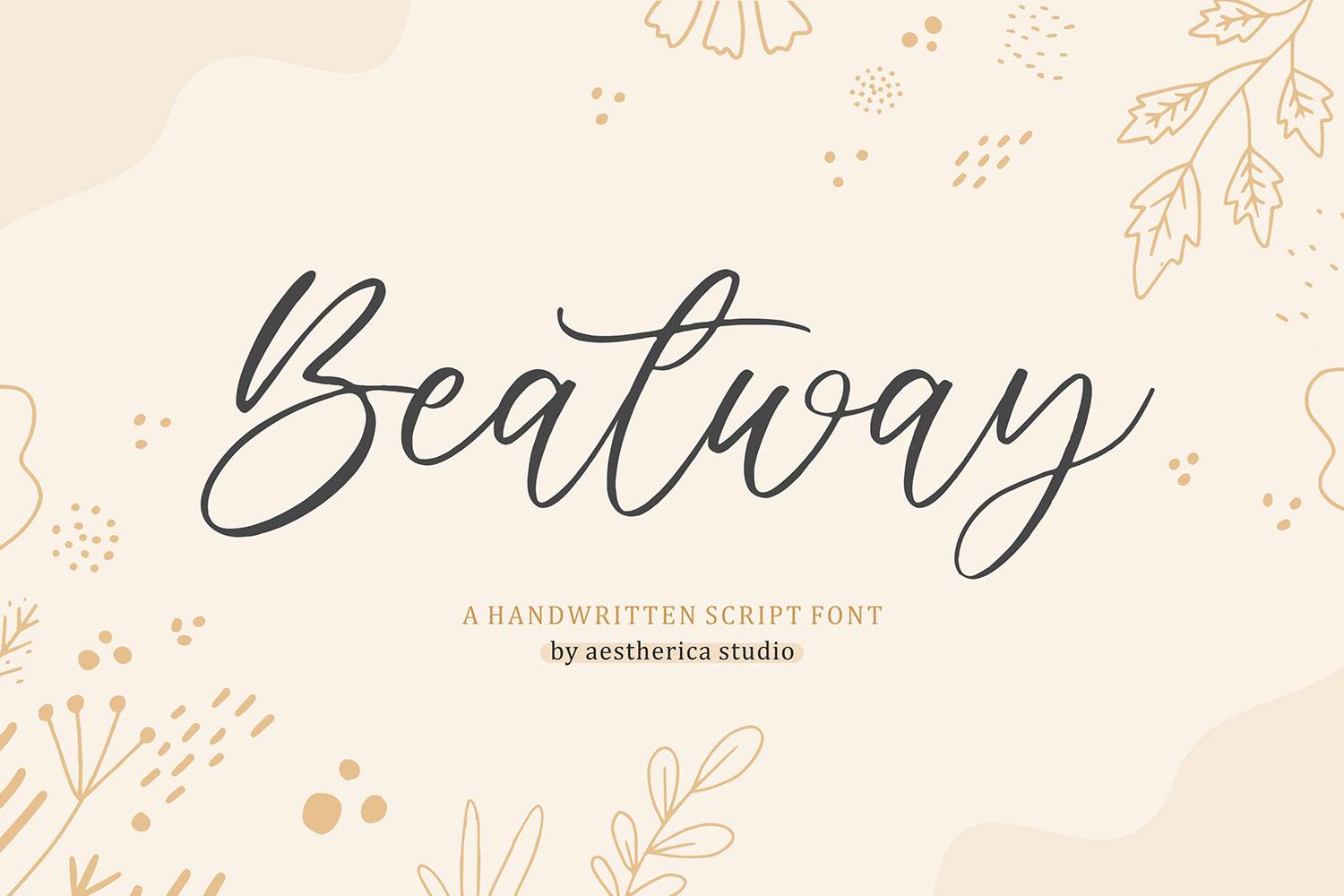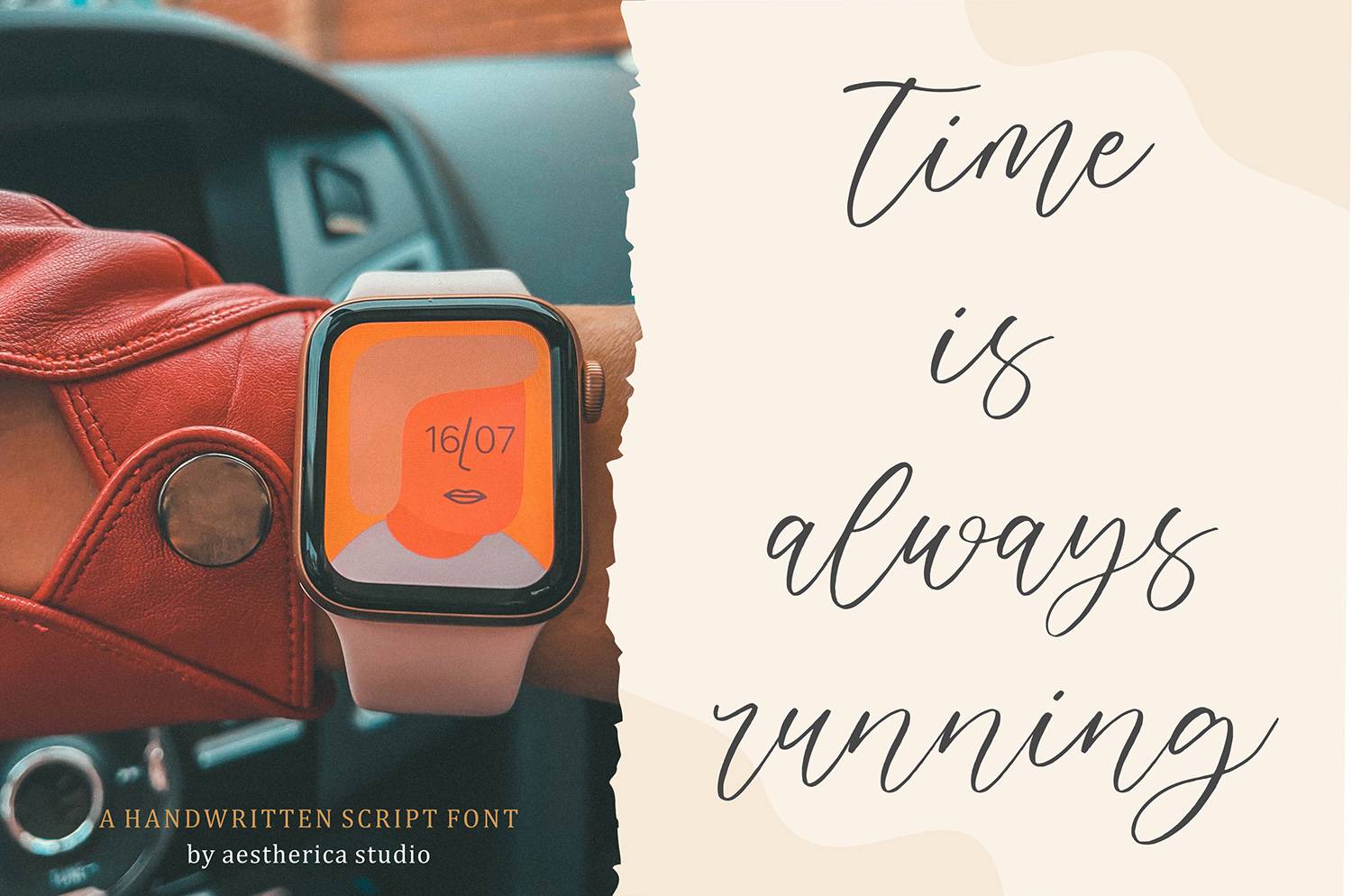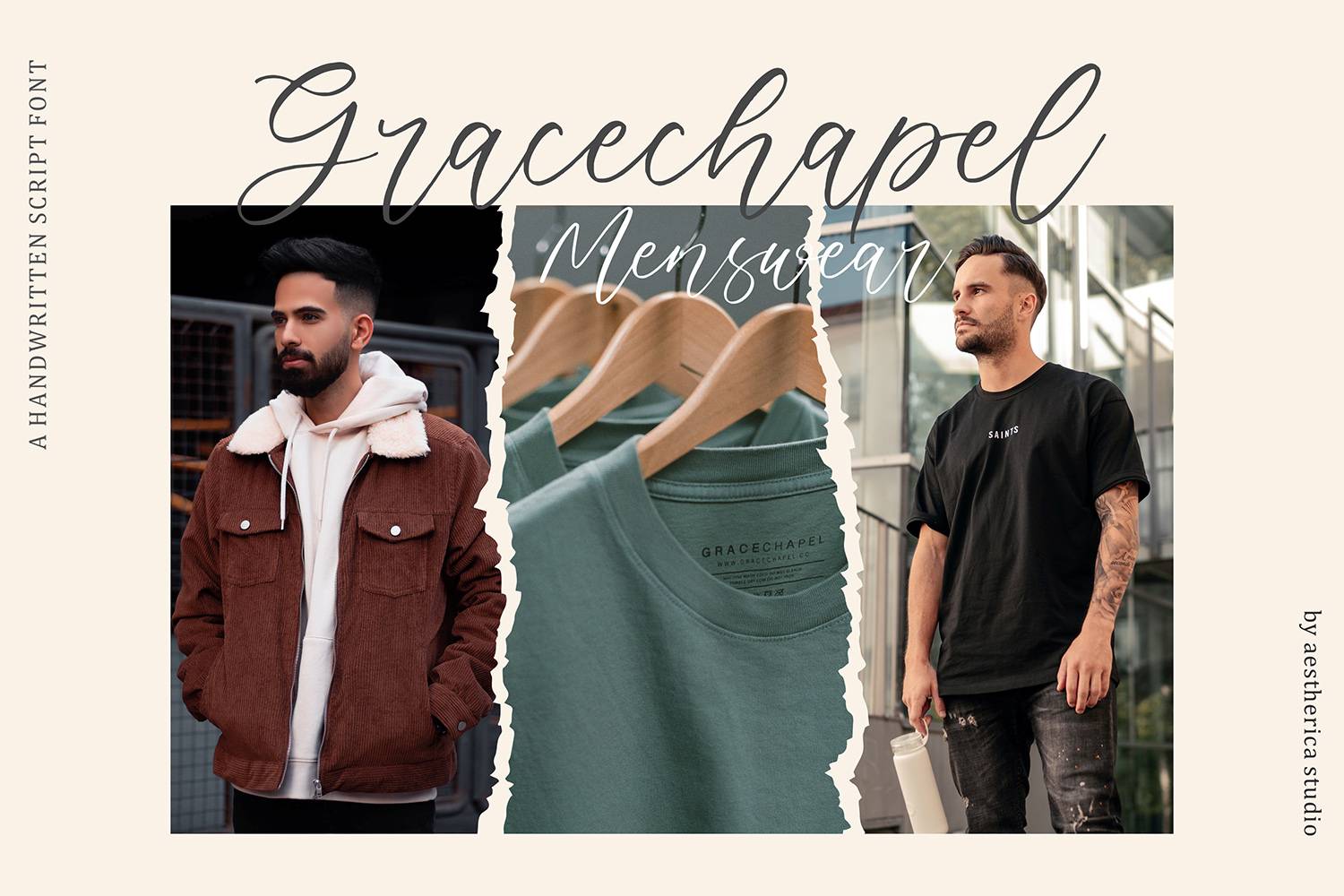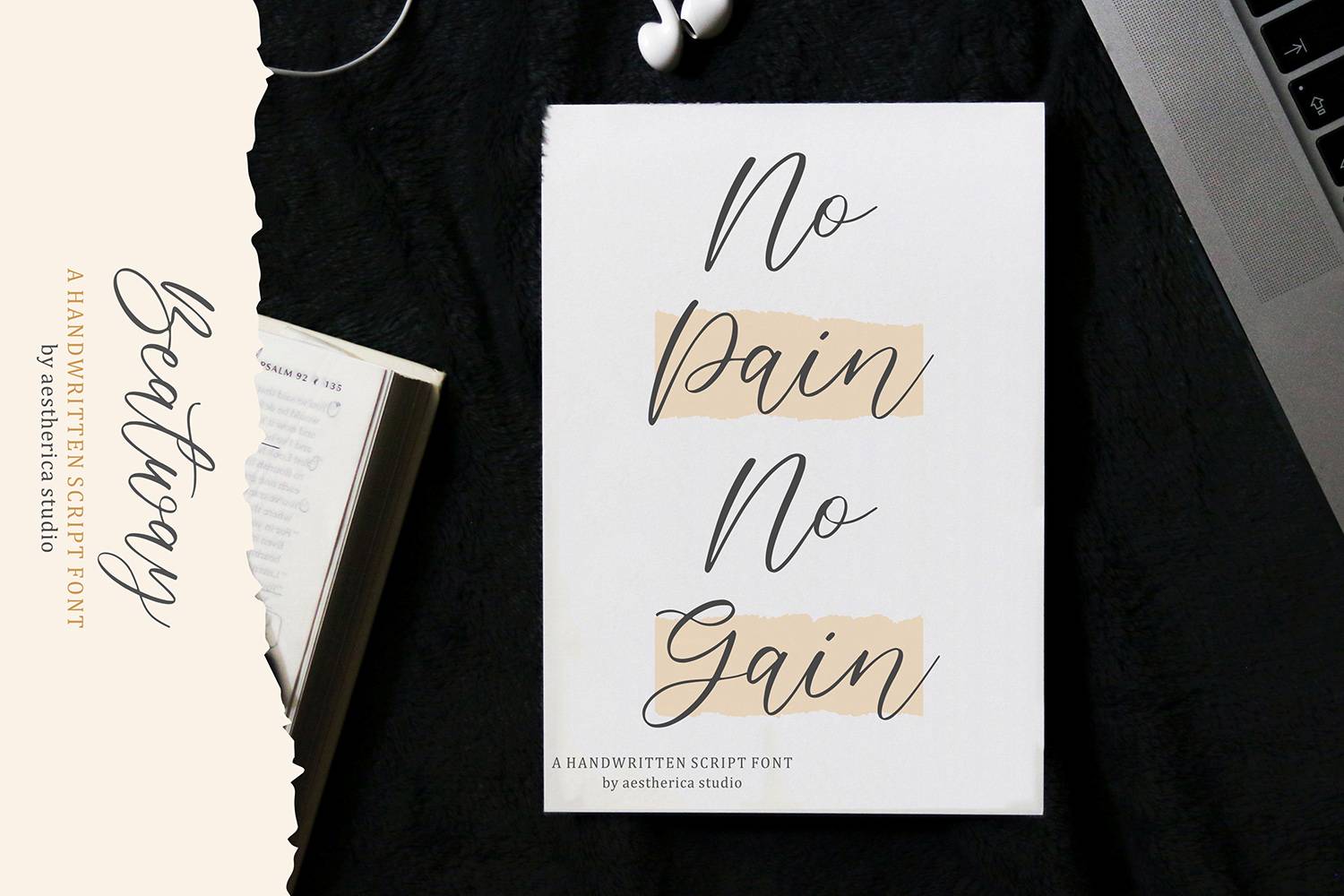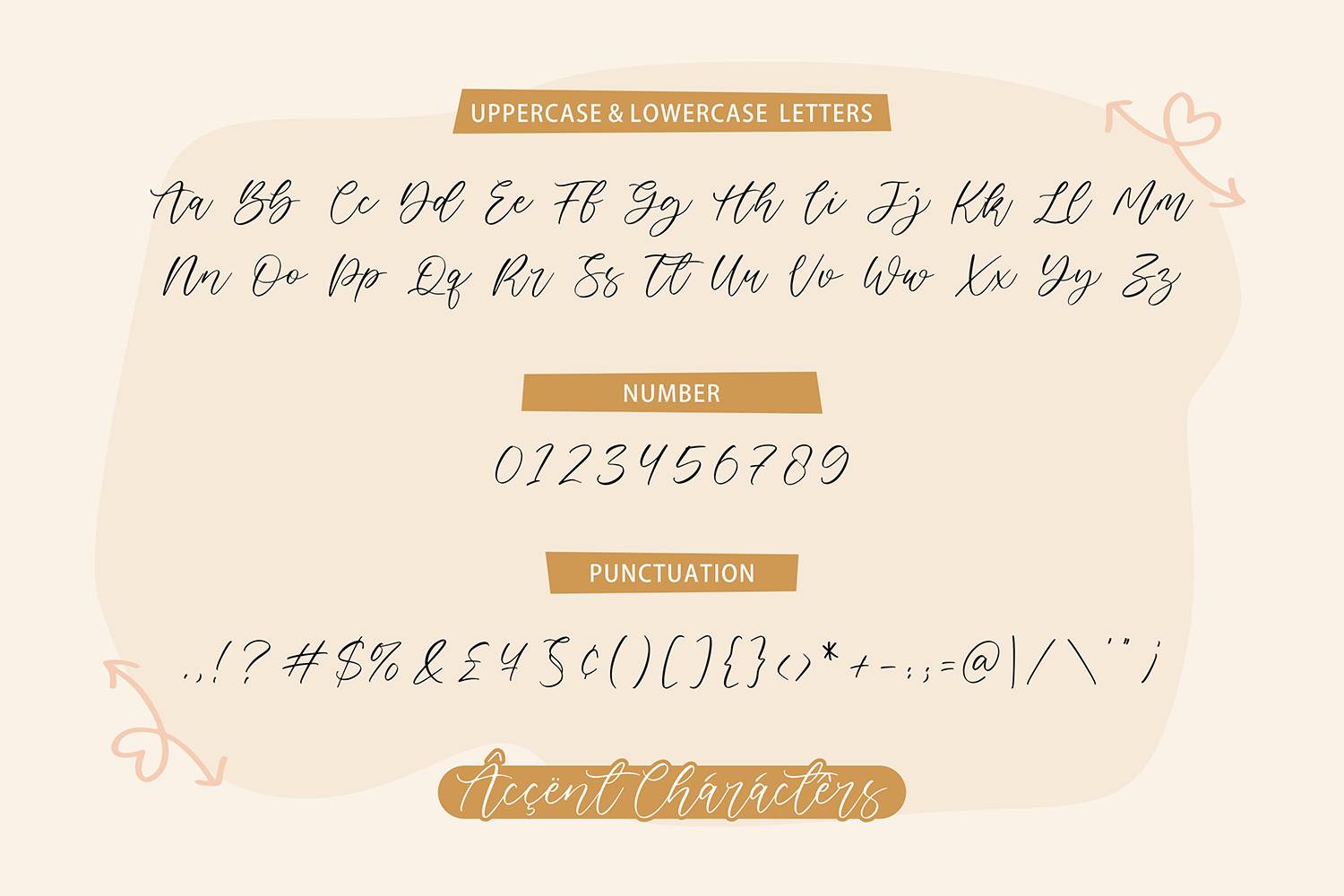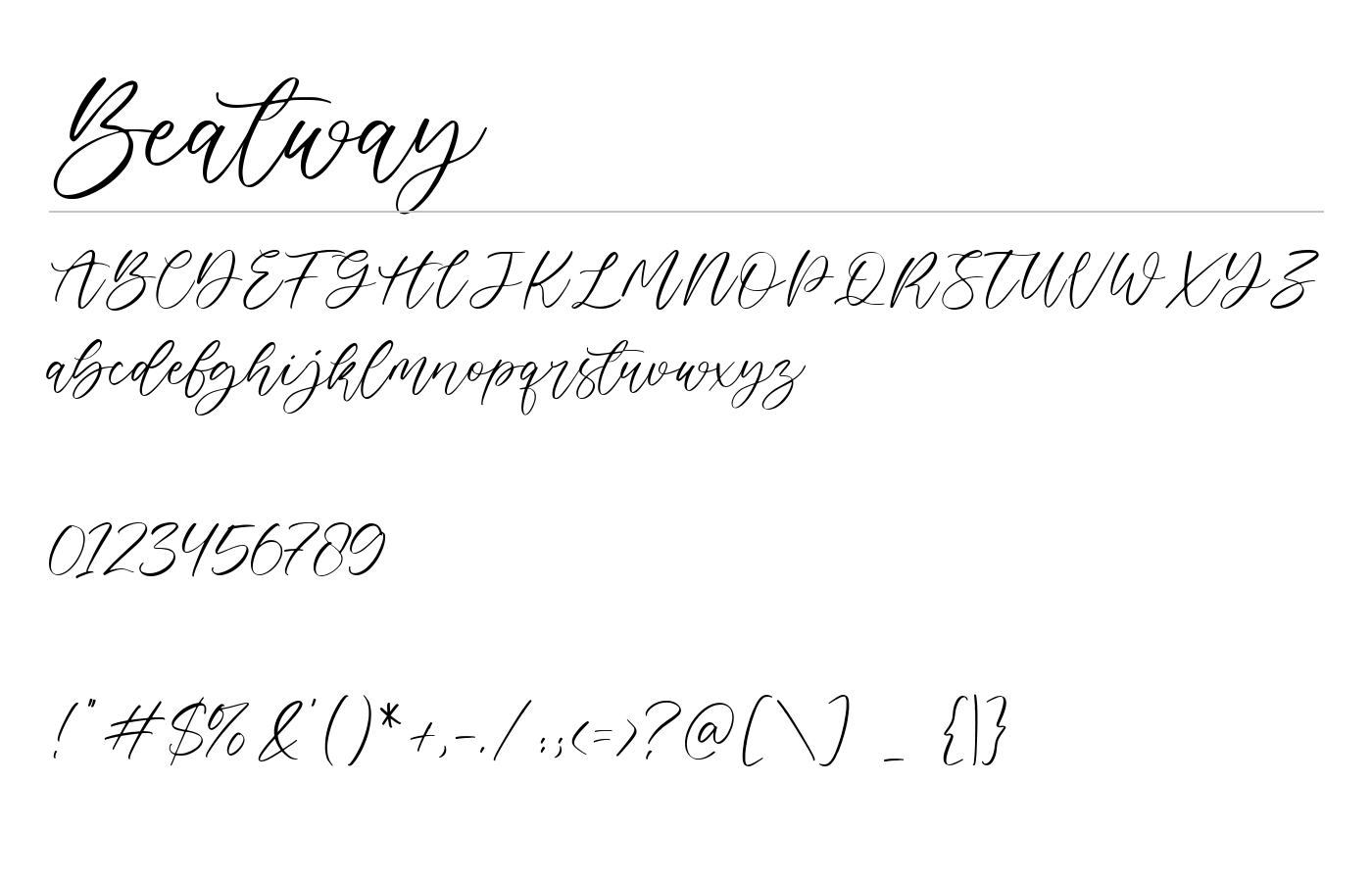
Beatway is a delicate and elegant script font characterized by its flowing, handwritten style and fine, graceful strokes. Its light weight and natural curves give it a personal, sophisticated feel, making it perfect for wedding invitations, branding, and feminine or creative projects that seek a touch of charm and refinement. This font works beautifully in headlines and decorative text where a stylish, heartfelt impression is desired.
Beatway Font
About Beatway Font